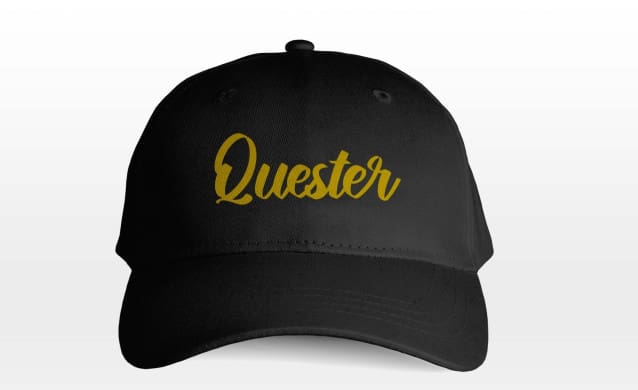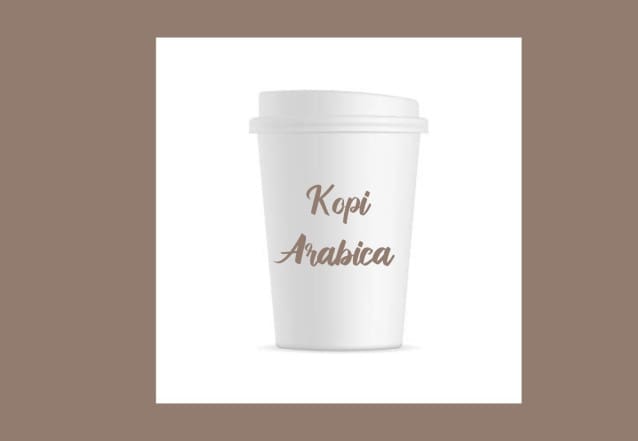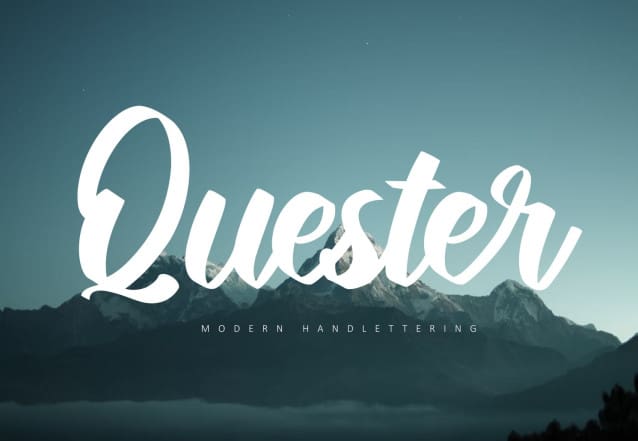
Quester Script Font
Quester Script Font is a fun and festive modern handwritten font. It fits every holiday creation you have, so add this font to your designs and bring them to life!